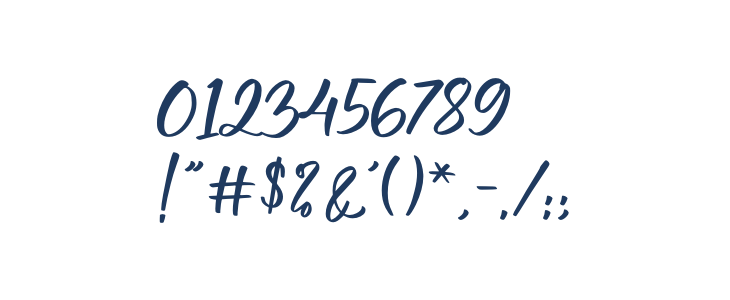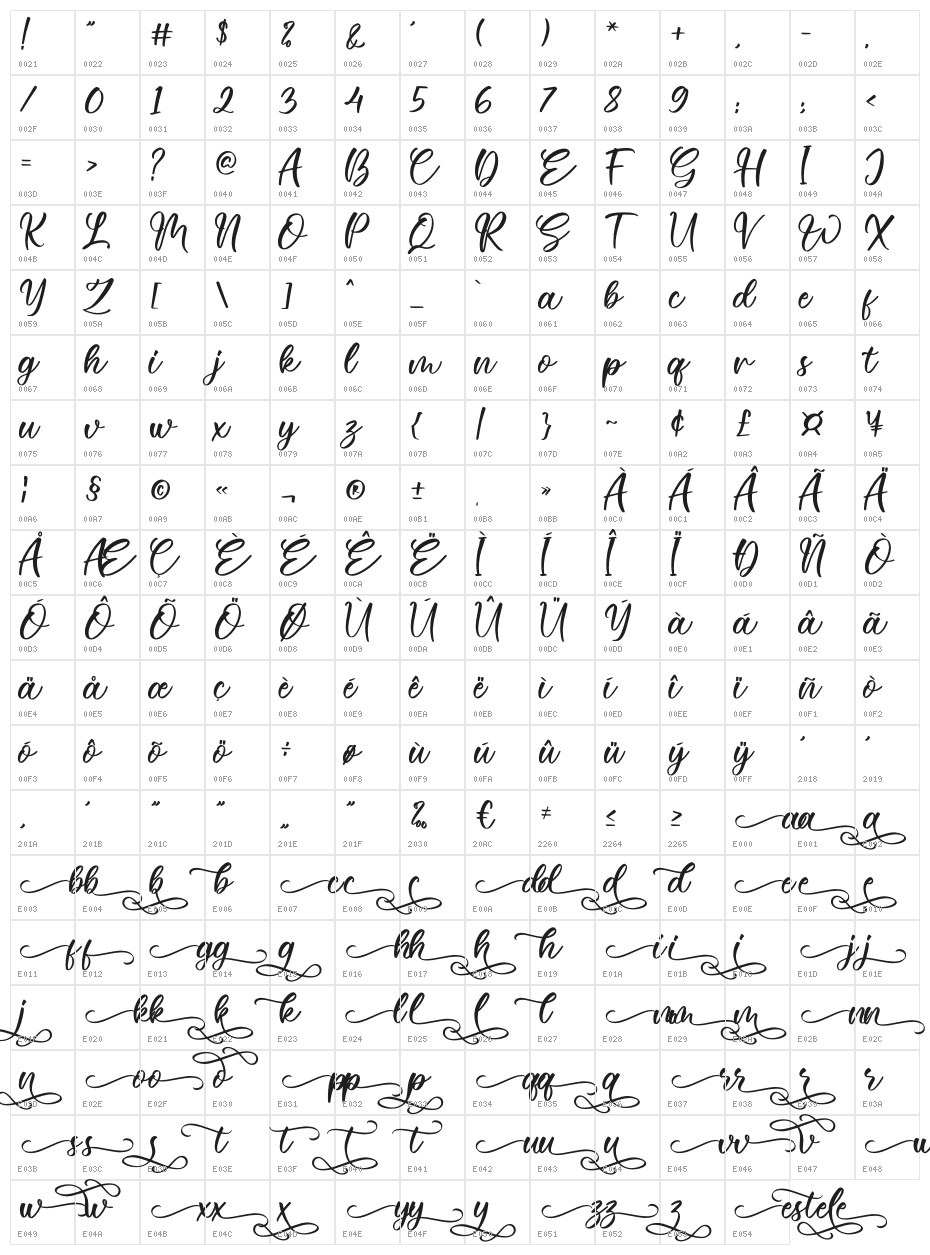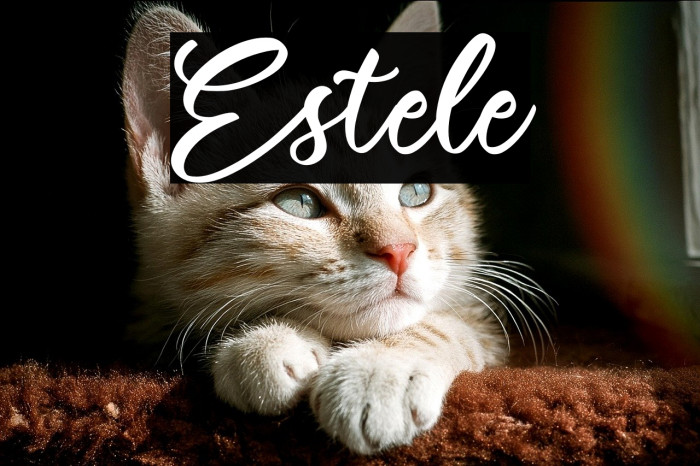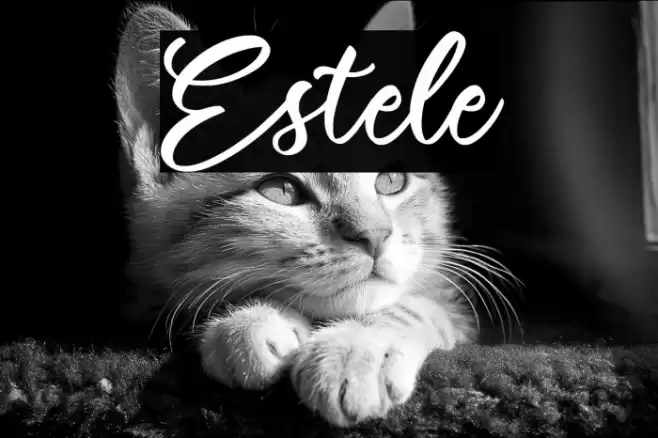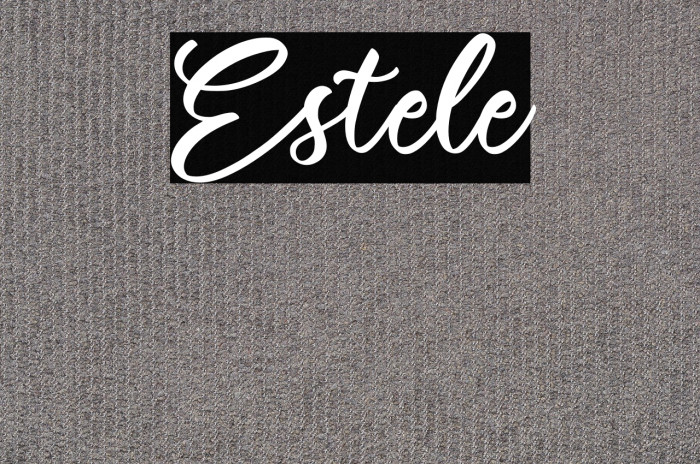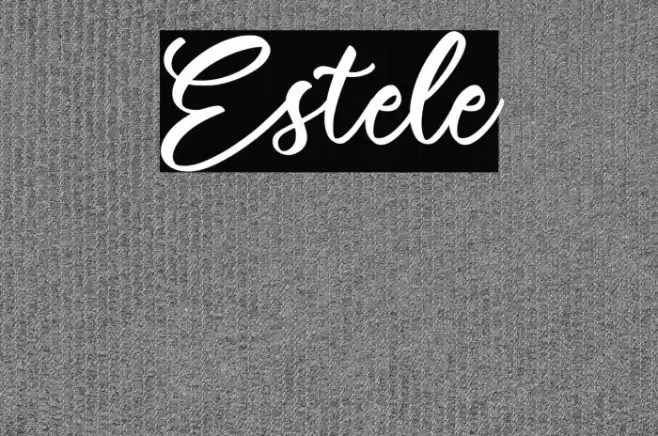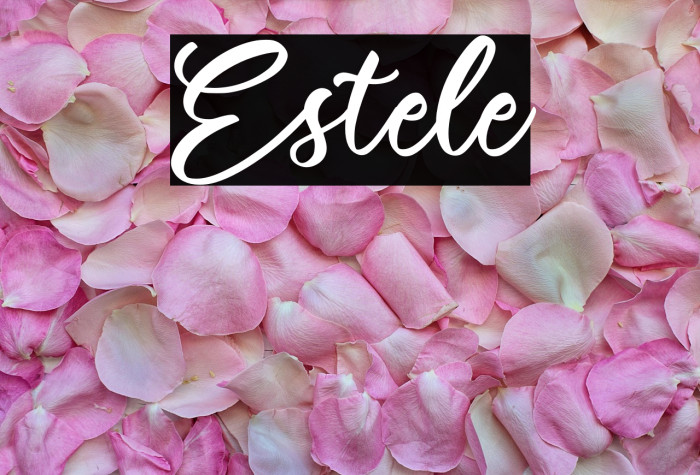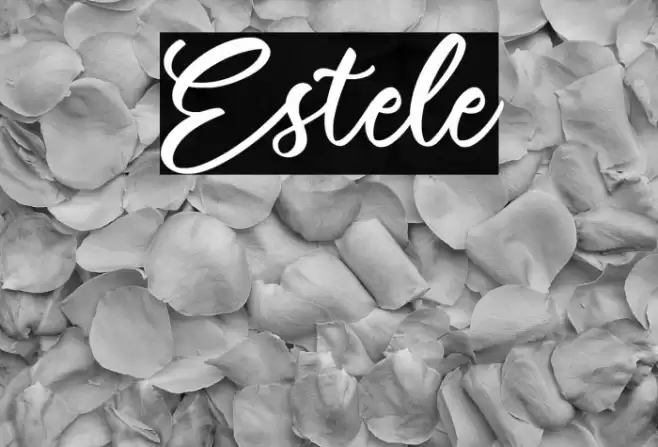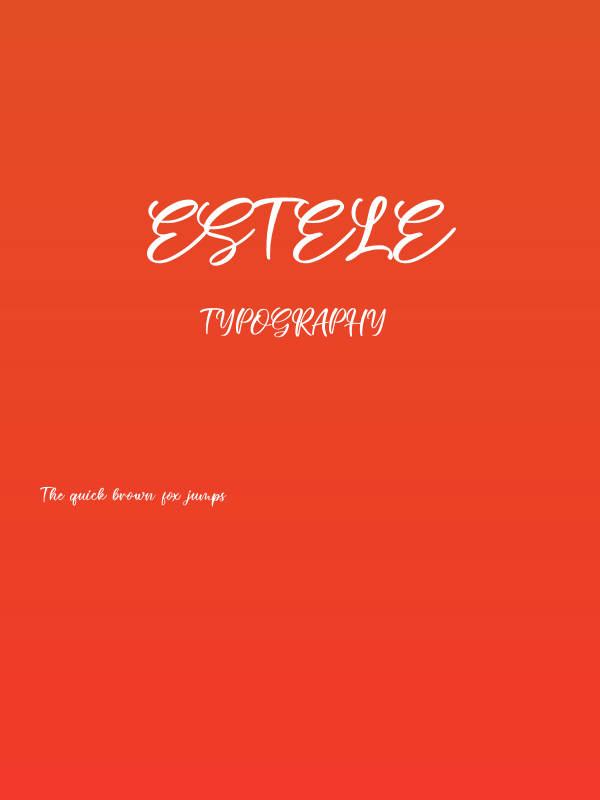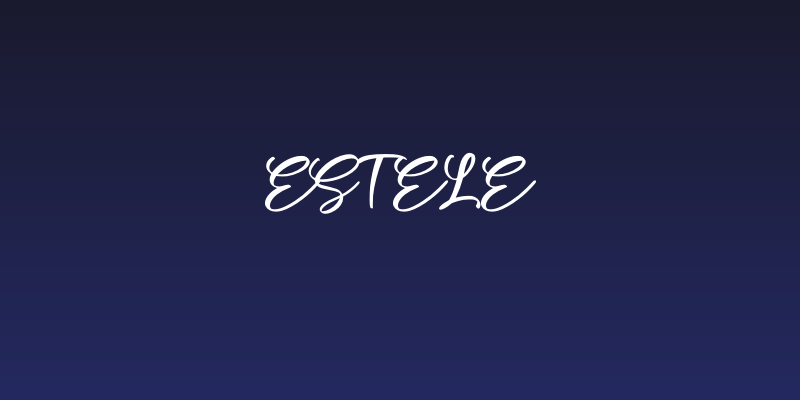
Estele Font
Estele Description
This font features a flowing, cursive style with a modern twist. The characters are elegantly connected, giving it a handwritten appearance. The uppercase letters are bold and slightly slanted, while the lowercase letters maintain a consistent, smooth flow. The numerals and special characters are designed to complement the overall aesthetic, with a playful yet sophisticated look. This font is perfect for adding a personal touch to any project, combining readability with artistic flair.
| Use Case | Logos, Invitations, Social Media |
| Proposed Projects | Ideal for wedding invitations, greeting cards, branding, and social media graphics. |